Is there a name to describe the situation where a particular character is shown on a computer screen in a particular font, but this font does not have a glyph for this particular character?
Usually, the result looks like this: □
A kind of empty rectangle. Sometimes it shows the code for that character within the rectangle.
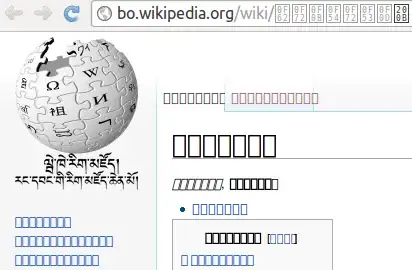
tofubake
How do yo call this phenomenon in Japanese?
If there is no name, is there a common term referring to this "missing glyph square" in Japanese?
(It is not 文字化け. 文字化け happens when character encoding meta-information is lost. It is not the problem here. Using a better font solves this phenomenon, but does not solve 文字化け. Selecting a character encoding solves 文字化け, but does not solve this phenomenon.)
As far as Internet slang goes, the word 豆腐{とうふ} is often used as a term for replacement glyphs because of their rectangular shapes, and 豆腐[化]{ば}け or 豆腐[化]{か} describe the phenomenon in one word.
• 画面上の日本語がすべて豆腐になってしまっていて読めない
• フォント設定を変更しても豆腐化けが直らない
I just asked a colleague, he did not know the term but he said it is somehow understandable. I personally prefer this term to 文字化け because it is more precise. And that's a funny word ;-) – Nicolas Raoul Mar 29 '12 at 12:50
I had forgotten that this term existed. 豆腐 in this meaning (a slang for replacement glyphs) is often written as トーフ. I did not know that the phenomenon itself is called 豆腐化け. – Tsuyoshi Ito Mar 29 '12 at 17:18
It is still a case of 文字化け. 文字化け means the phenomenon where characters are shown incorrectly on computers, and its cause is not necessarily a mismatch of character encodings.
I do not know a specific term for the kind of 文字化け which you are talking about. I would say something along フォントが足りないことによって起きる文字化け.
By the way, the glyphs used in this situation are technically called replacement glyphs in English. I do not know how they are called in Japanese, but I guess that there is some technical term for them in Japanese.
Update: As Dono pointed out, some people use the word 文字化け in the narrower sense which you explained in the question. (See the note page of the article in Japanese Wikipedia to see an example.) I do not know if there is a better term which everyone agrees on.
Sorry, it is not mojibake. There is no "bake" going on. It is simply a matter of the font not containing a "glyph" for a specific character. Notice that "character" and "glyph" are two different things. Characters can mojibake; glyphs cannot. This is an area that I work in and am quite familiar with. – Dono Mar 28 '12 at 12:24
@Dono: Your interpretation of the word does not change the fact that it is called 文字化け. Also check the Wikipedia article I linked to. I do not know if it is called mojibake in English or not. If not, then 文字化け and mojibake have a little different meanings. – Tsuyoshi Ito Mar 28 '12 at 12:25
Fine, do not believe me. But since you are asserting a fact, then you should prove it. To the average computer user who knows nothing about encoding or fonts, they may call it mojibake out of ignorance, but that still does not make it mojibake. I have more than a decade of professional experience in this field (in Japan and in Japanese). And I am telling you that you as politely as I can: you are mistaken. My comment is in regards to mojibake and 文字化け. – Dono Mar 28 '12 at 12:30
@Dono: I cannot prove it, but I had linked to evidence. If you ignore it, it is your problem. – Tsuyoshi Ito Mar 28 '12 at 12:31
@Dono: I learned that some people indeed use the word 文字化け in the narrower sense, and updated the answer accordingly. – Tsuyoshi Ito Mar 28 '12 at 12:45
It is mojibake to the average user, who has no idea what Unicode characters mean. If you want a Japanese nickname for this to be used by techies, coin one. Maybe it will catch on. – Kaz Mar 28 '12 at 23:46
• @Kaz: Some techies seem to have no idea that most people in the world do not use the word “character” (or 文字) in the way defined in Unicode. – Tsuyoshi Ito Mar 31 '12 at 14:28
The Unicode website has a page with English and Japanese terms side-by-side, and that page says replacement glyph is 代替グリフ. –  Dec 03 '15 at 01:12
• An ask around the office seems to agree that most people not in the know would call this 文字化け. Noone had heard of 豆腐化け. I would tend to agree with snailboat as to the official name for it and yibe as to the internet slang. Depending on where you are wanting to write this would obviously change which one you would use to be understood. – The Wandering Coder Feb 17 '16 at 06:25
I propose: suujibake (数字ばけ). Cheers!
It's an interesting idea, but it seems too specific to only the ones with numbers within the rectangle. The empty rectangles are quite common, even more than the number ones for me. (I just realized that I don't even know what to call this in English...) – atlantiza Mar 30 '12 at 01:08
Evidently, the appropriate English for the empty blocks is "tofu". – Kaz Mar 31 '12 at 00:41